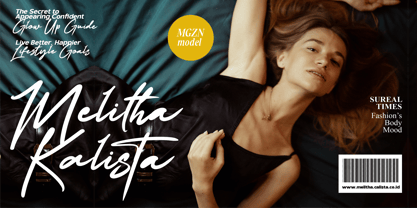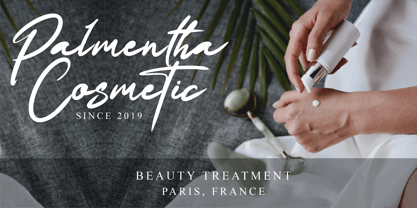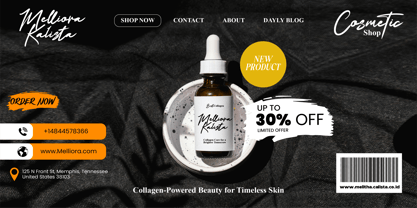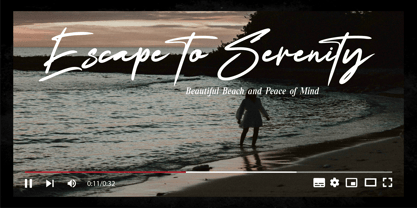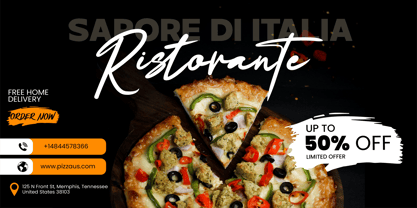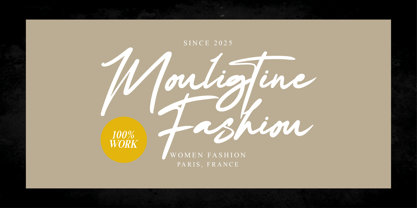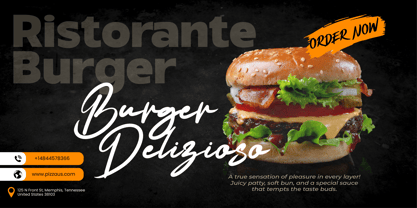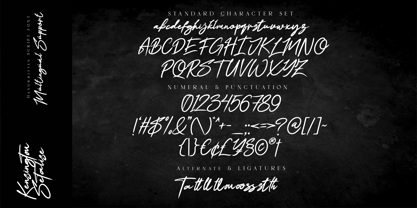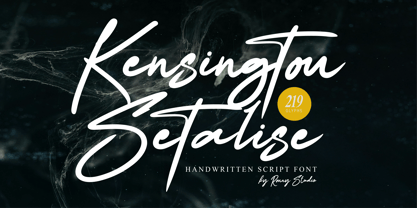
Kensington Setalise
by Ronny Studio
The Kensington Setalise Font Family was designed by Rony Rizki Jaya and published by Ronny Studio. Kensington Setalise contains 2 styles and family package options. More about this family
Kensington Setalise is a modern script font with a simple, elegant, and luxurious style, designed for branding, logos, movie titles, invitations, and product packaging. Its smooth curves and classy character make it ideal for designs aiming to appear exclusive and professional. Perfect for logos, social media, and other creative projects.